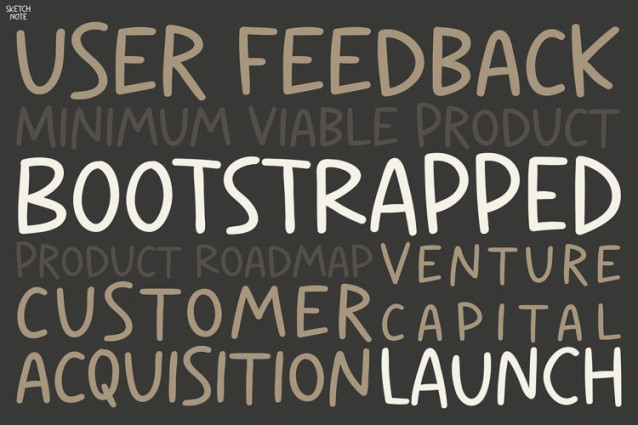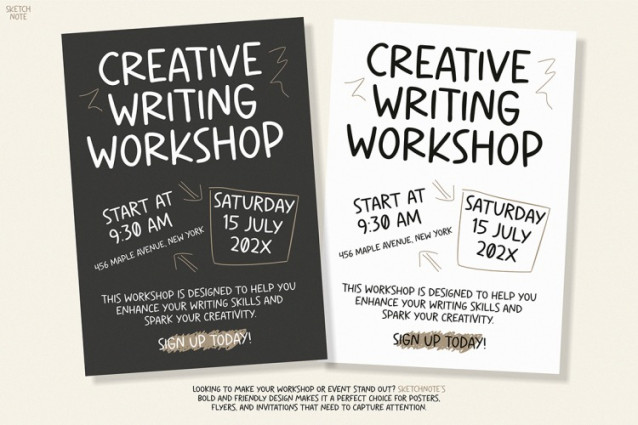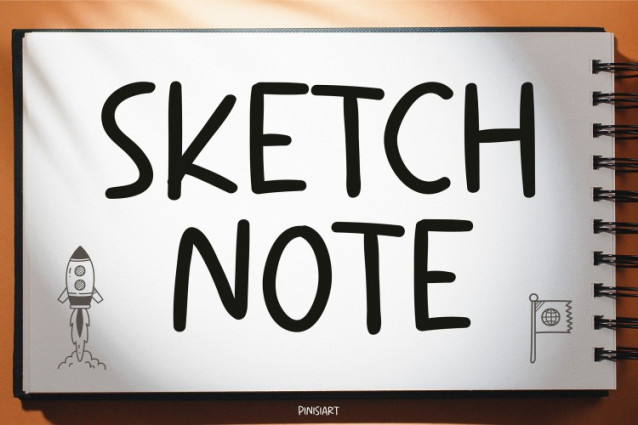
Sketchnote Playful Font
Sketchnote Playful Font is the perfect typeface to add charm and personality to your digital designs. Not only is it visually appealing, but it also brings a warm, playful character that sets your content apart. Its hand-drawn style, with slightly uneven strokes, gives a natural and casual look. Because of this, it adds a human touch to every word, making your message feel more personal and engaging.
Moreover, SKETCHNOTE isn’t just about looks. Its excellent readability makes it suitable for both headings and body text. You can combine uppercase and lowercase letters seamlessly. Even though it leans toward a fun, informal vibe, it maintains clarity and structure. Therefore, it’s a font that feels creative without sacrificing professionalism. You can use it in various formats—whether digital or print—and it still looks amazing. For example, try it on posters, e-learning modules, or Instagram stories to see its charm shine.